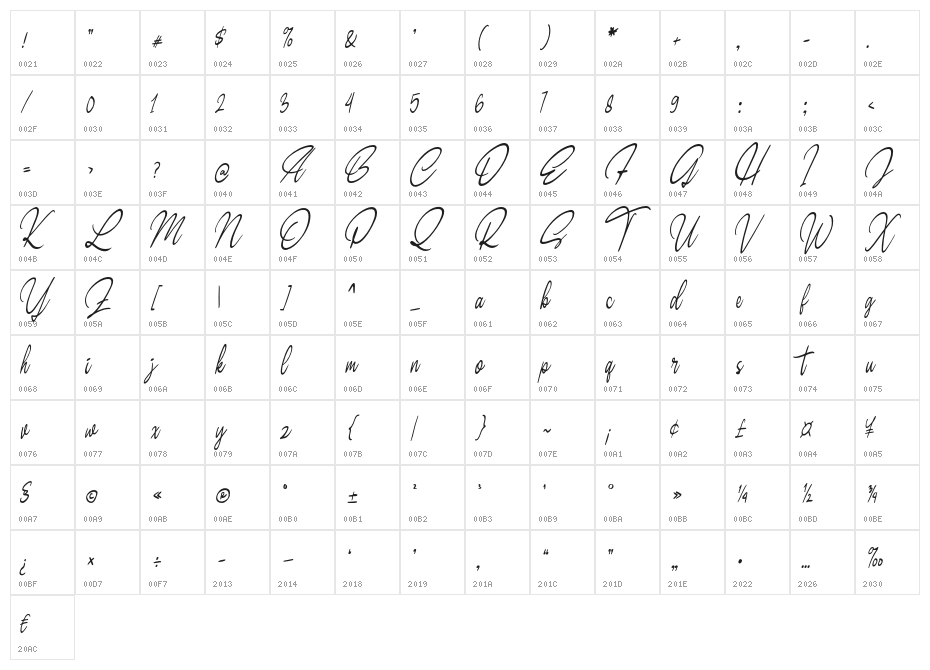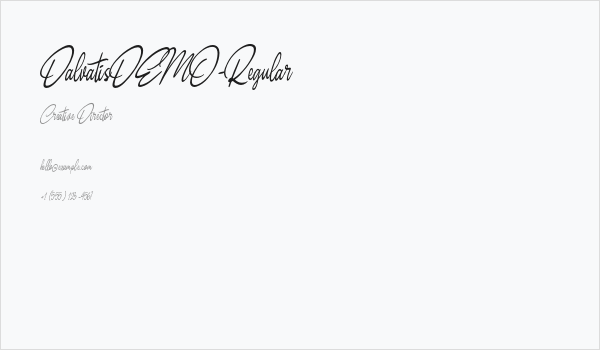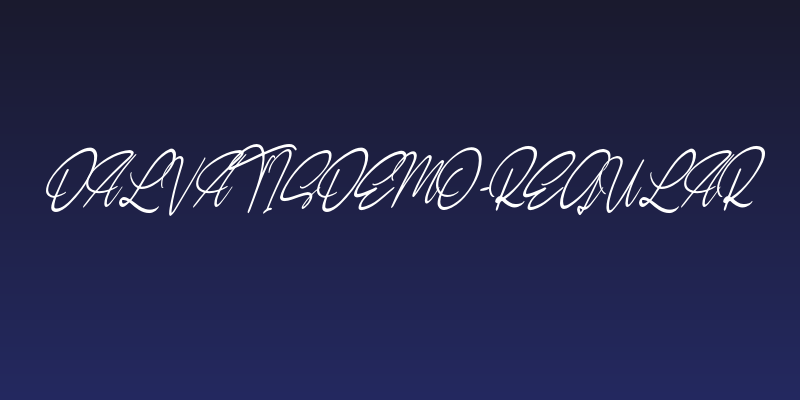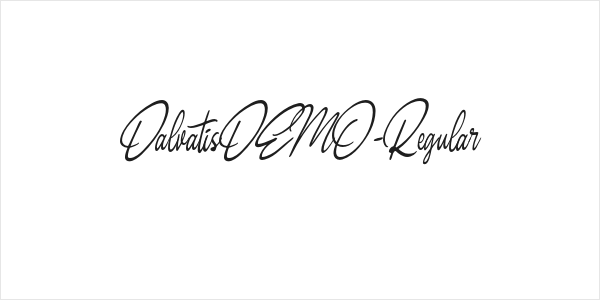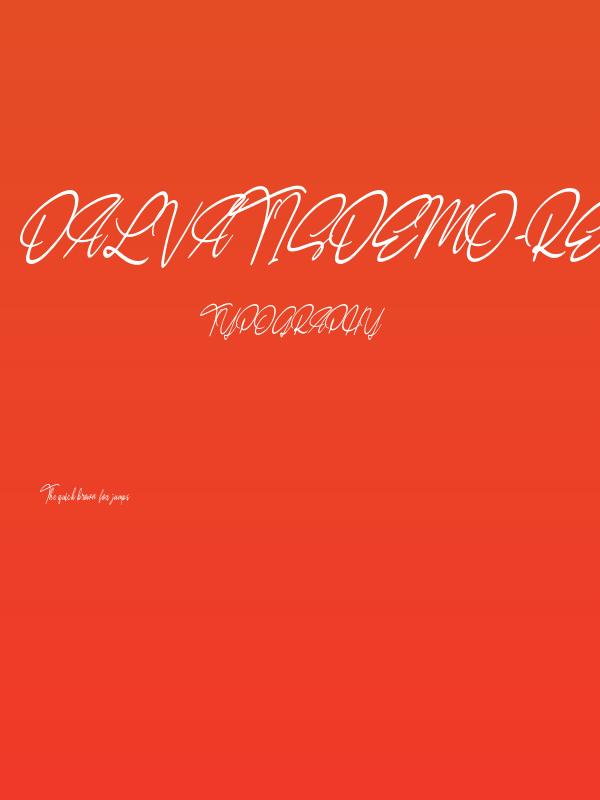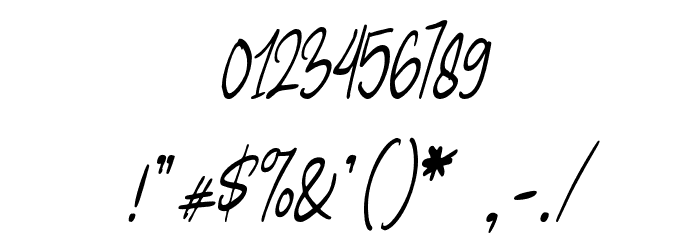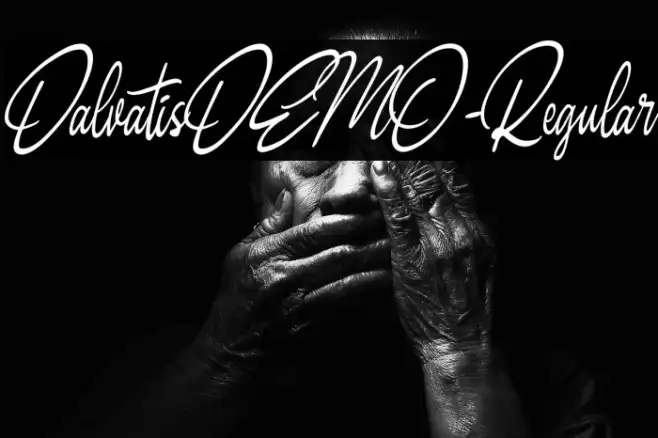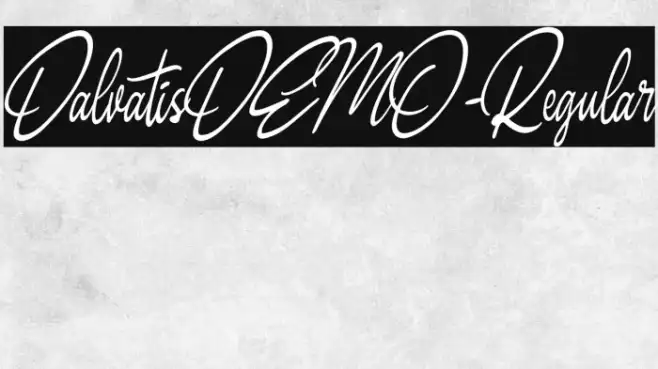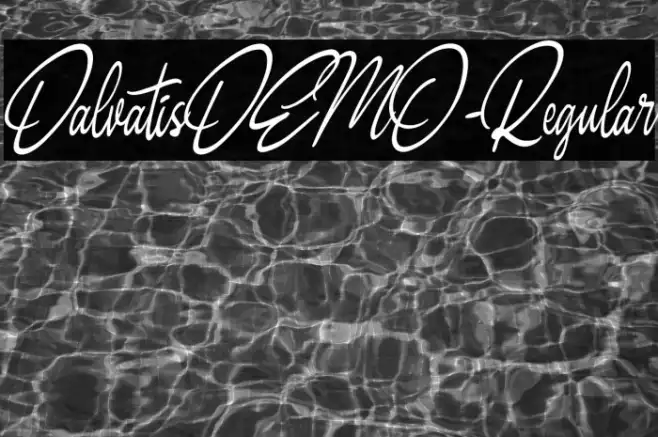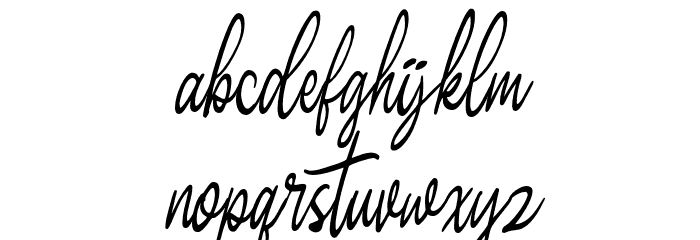
DalvatisDEMO-Regular Font
DalvatisDEMO-Regular Description
This font features an elegant and flowing script style, characterized by its smooth, cursive strokes and a sense of fluidity. The uppercase letters are particularly ornate, with sweeping curves and loops that give a sense of motion and grace. The lowercase letters maintain a consistent style, with a slightly more restrained design that complements the uppercase. The numerals and special characters are crafted with the same attention to detail, ensuring a cohesive appearance throughout. This font exudes a sense of sophistication and is ideal for projects that require a touch of elegance and class.
| Proposed Projects | Ideal for wedding invitations, elegant branding, greeting cards, and upscale packaging. |